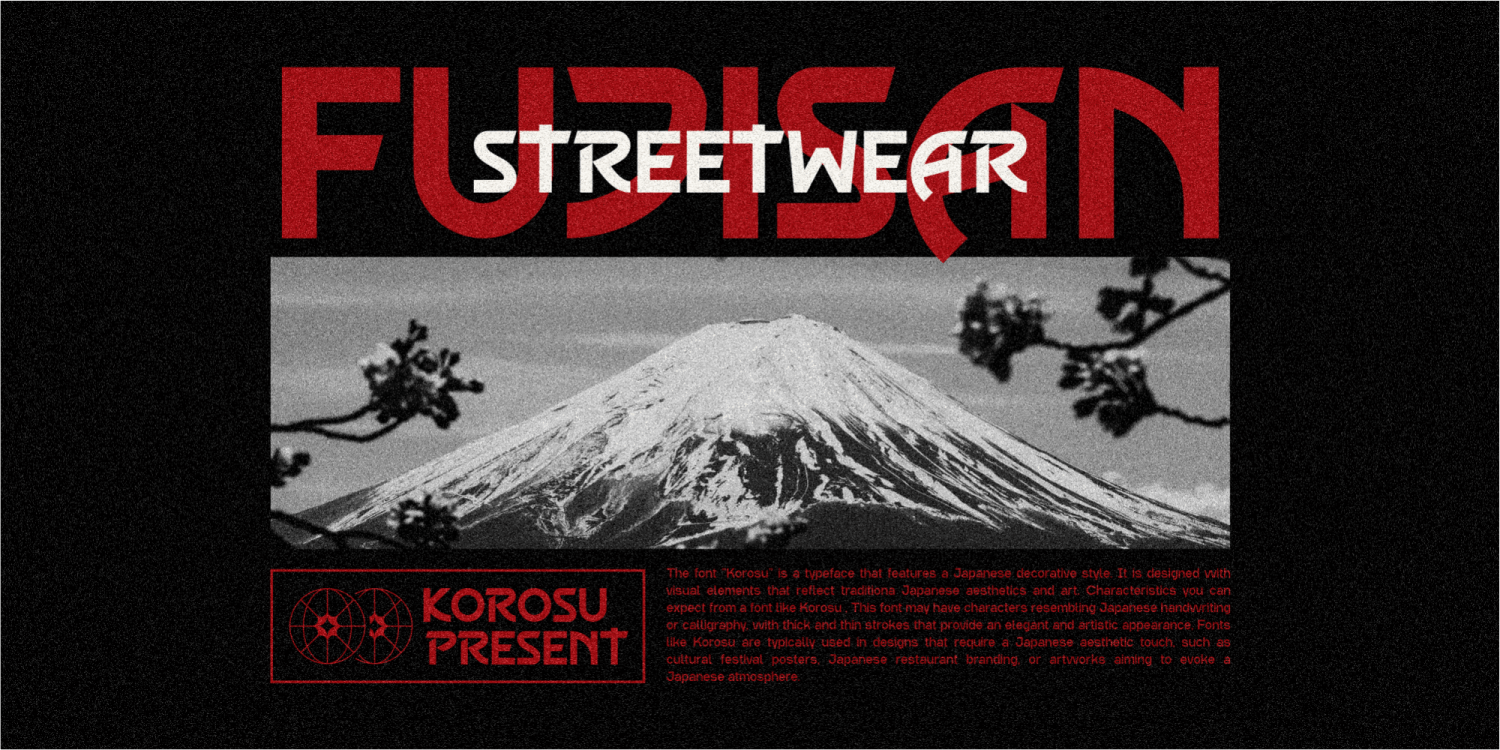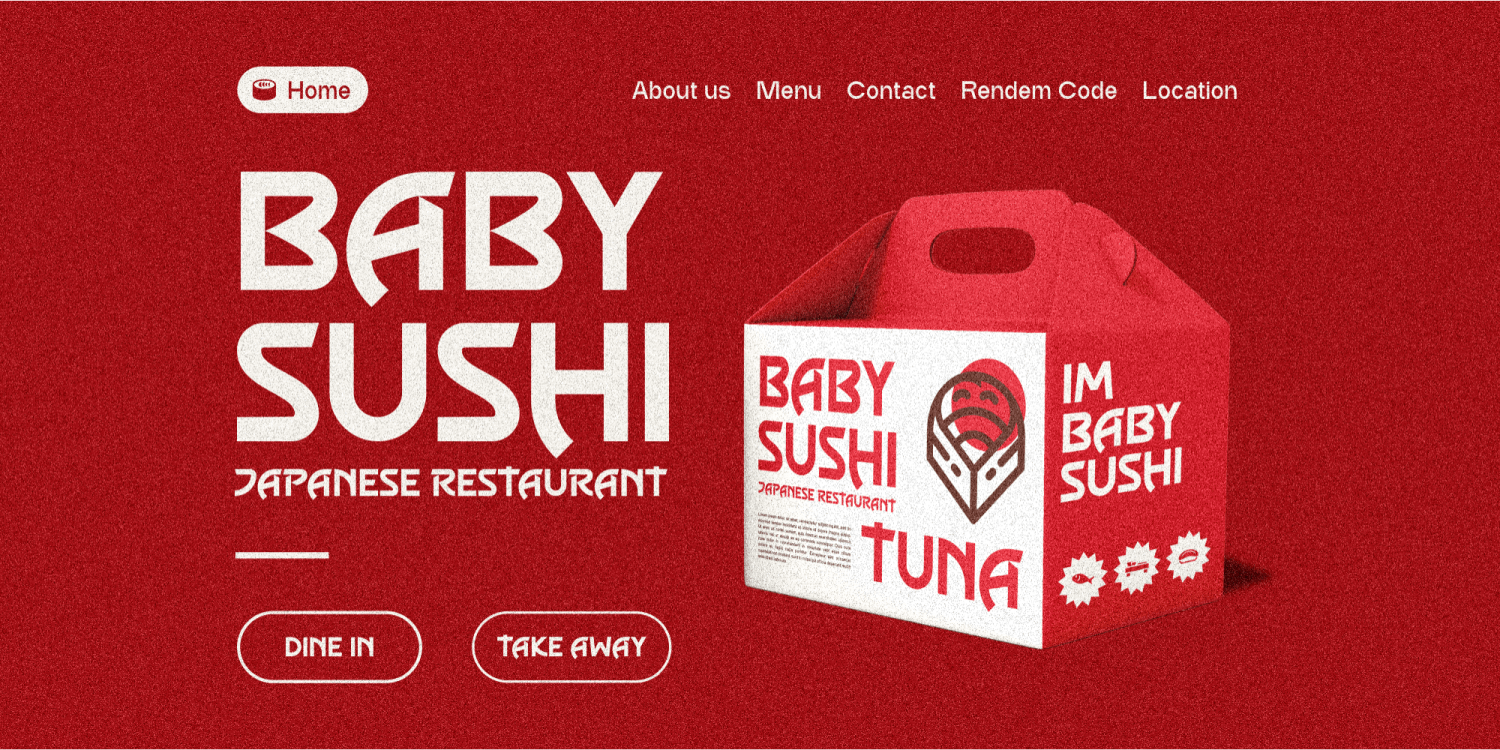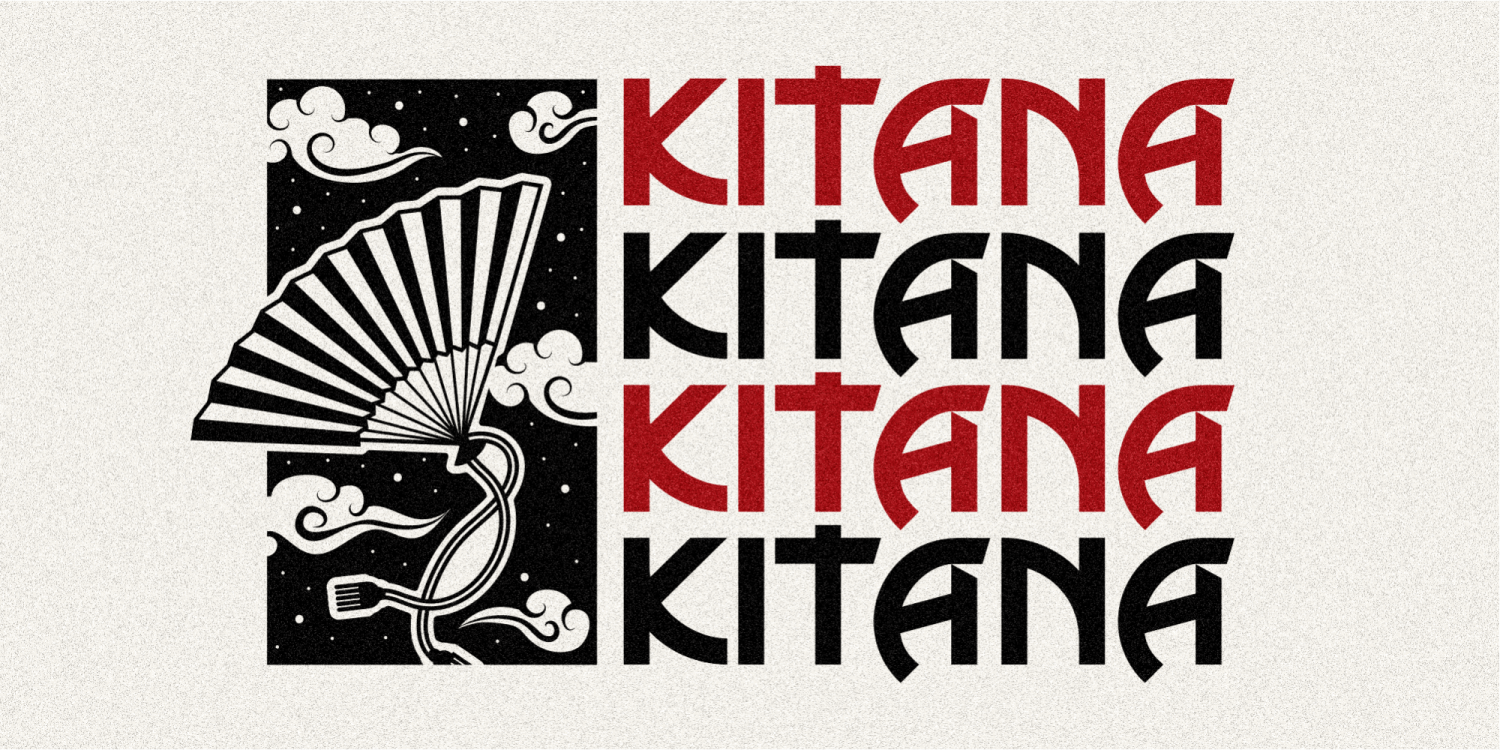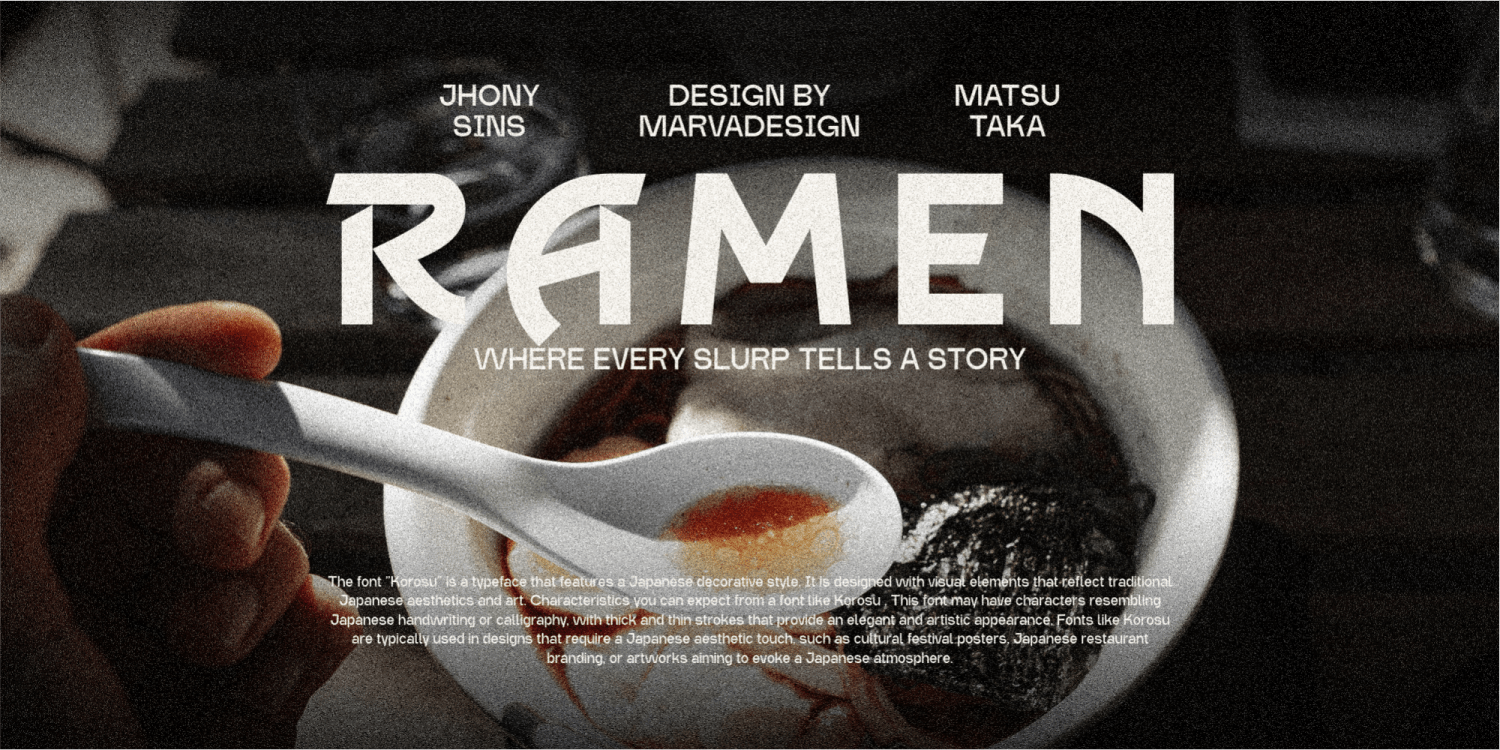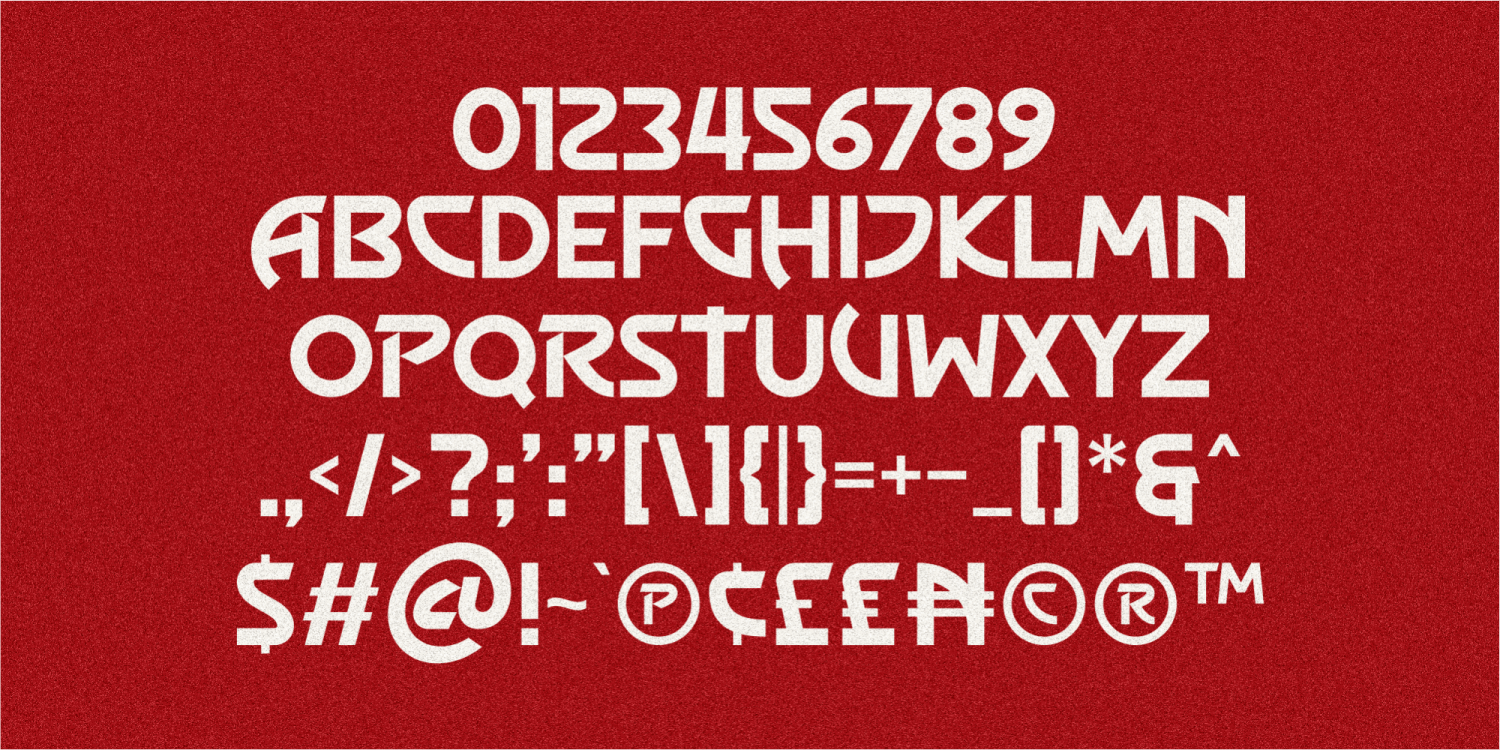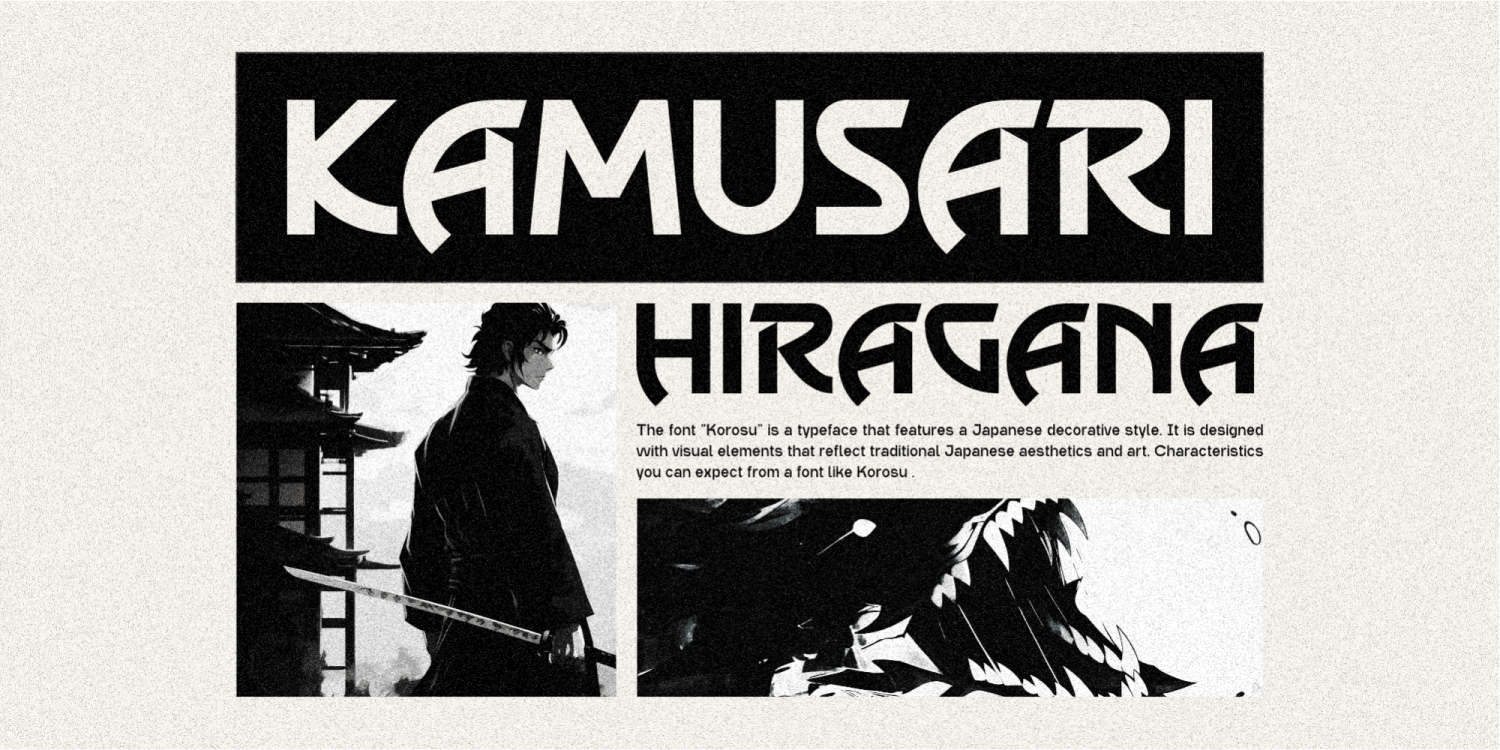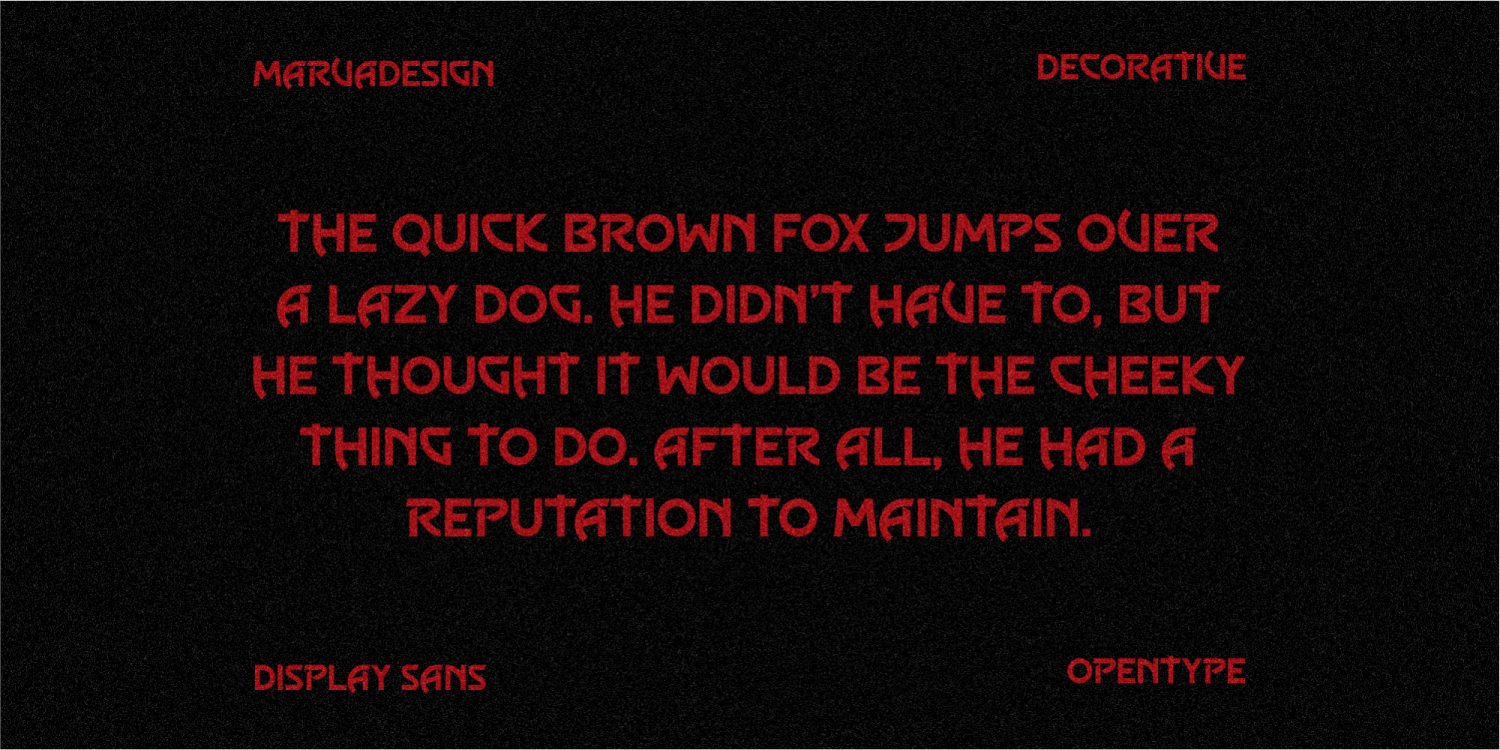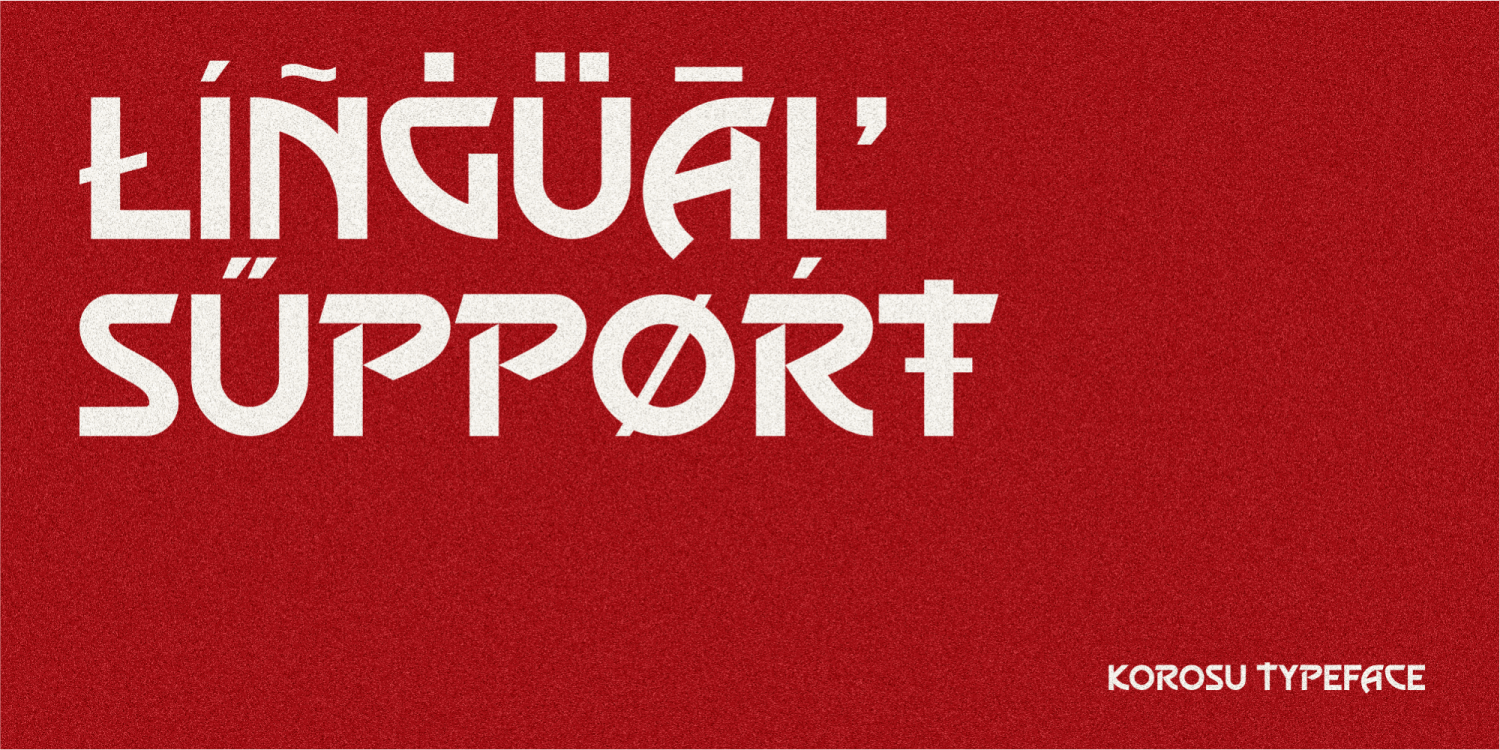
Korosu
Font Family by Marvadesign
The font Korosu is a typeface that features a Japanese decorative style. It is designed with visual elements that reflect traditional Japanese aesthetics and art. Characteristics you can expect from a font like Korosu , This font may have characters resembling Japanese handwriting or calligraphy, with thick and thin strokes that provide an elegant and artistic appearance, Fonts like Korosu are typically used in designs that require a Japanese aesthetic touch, such as cultural festival posters, Japanese restaurant branding, or artworks aiming to evoke a Japanese atmosphere.